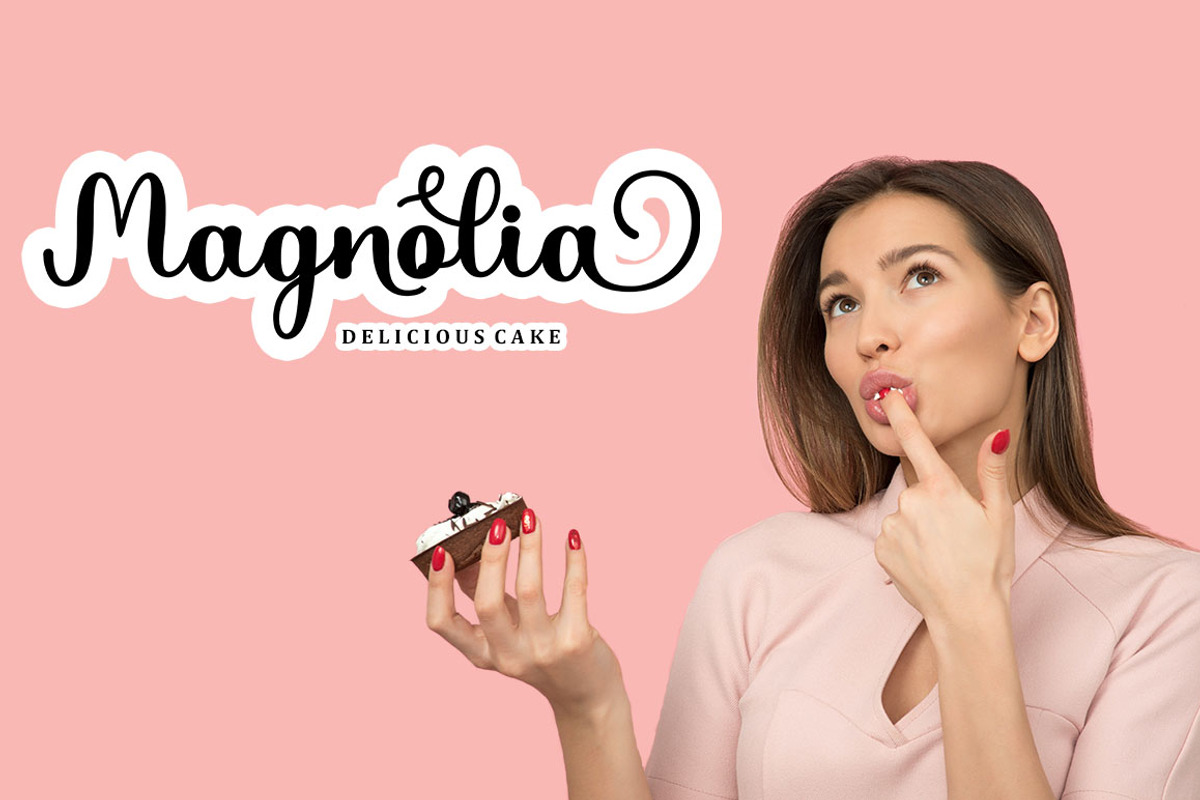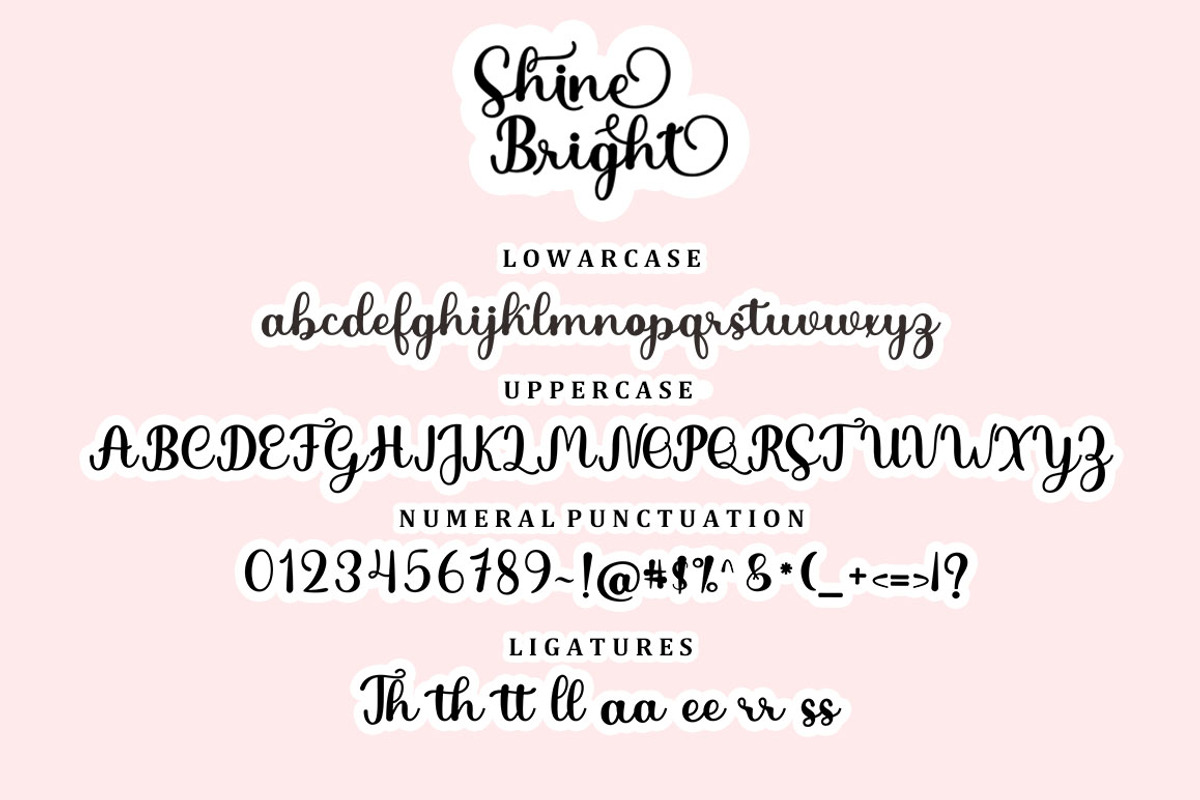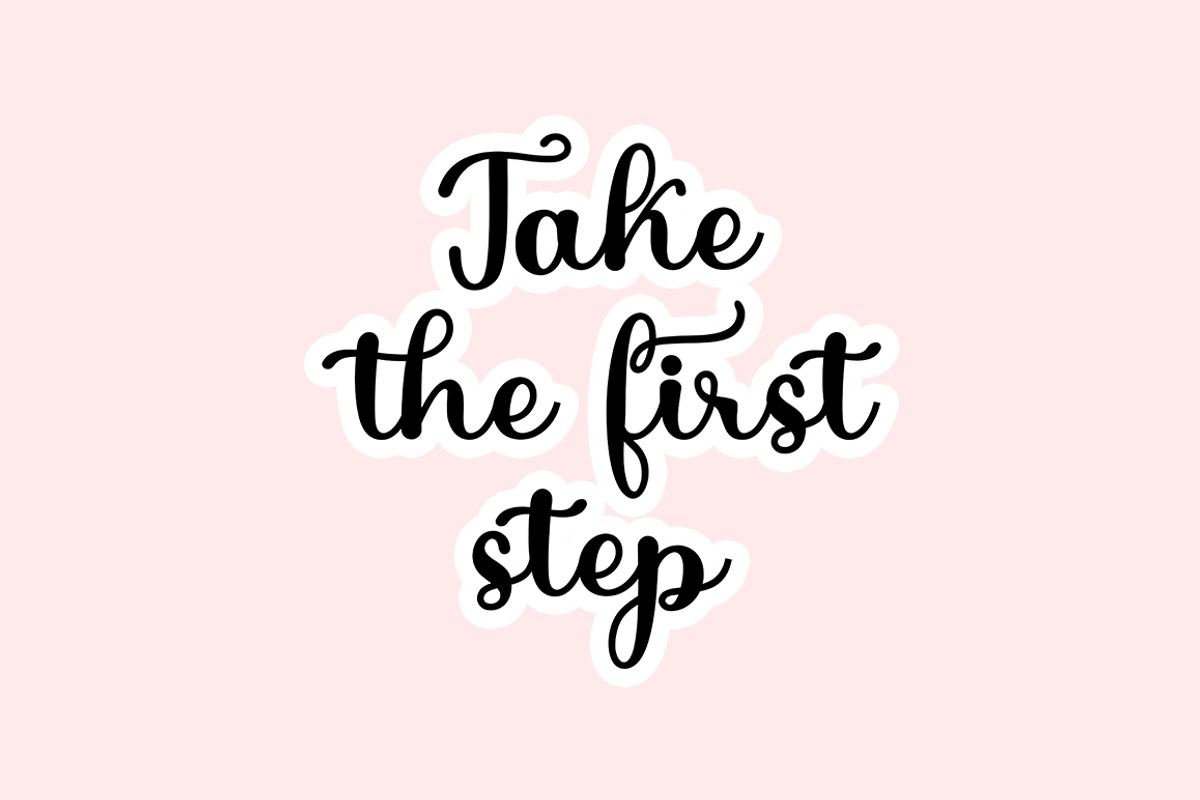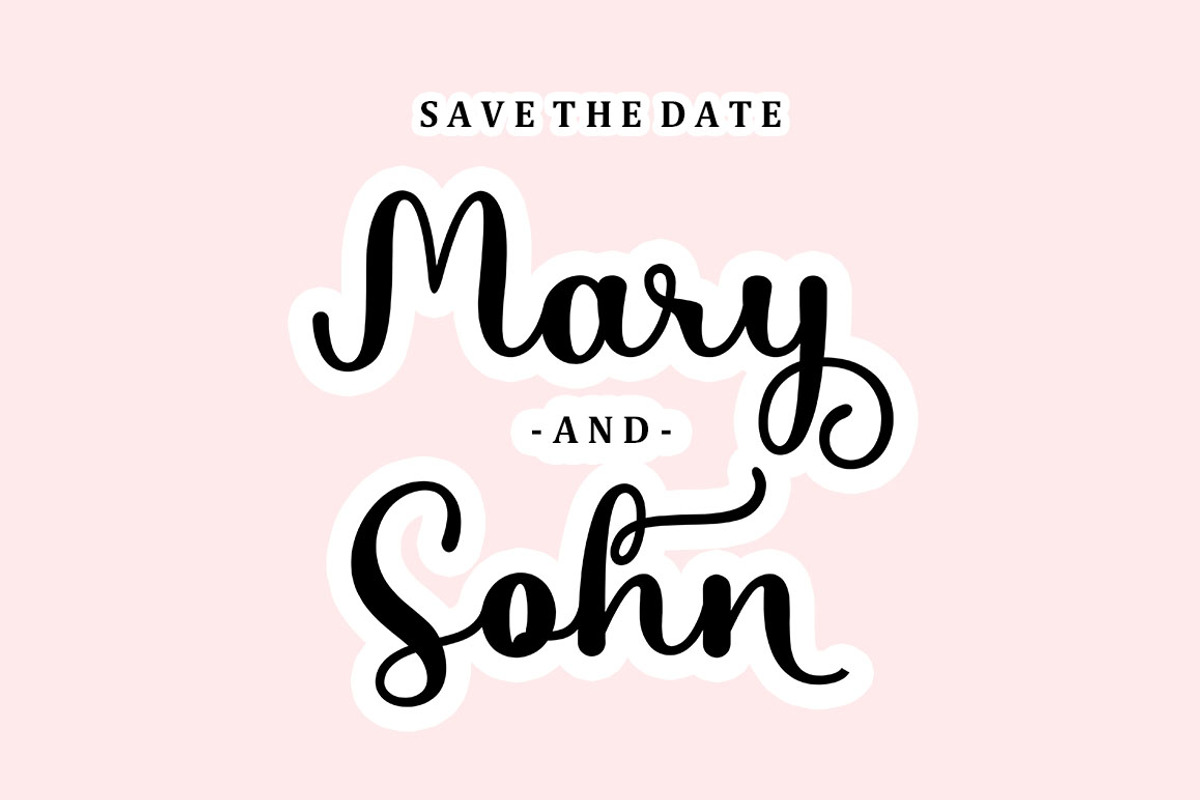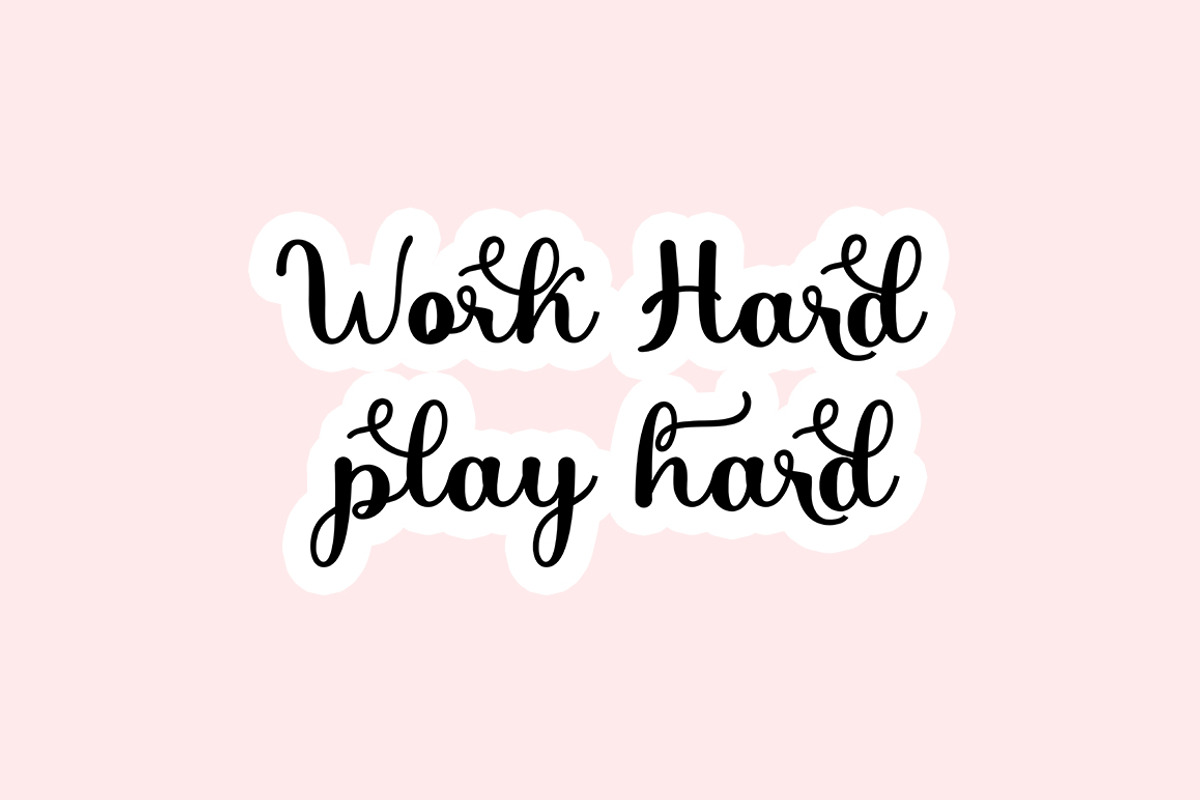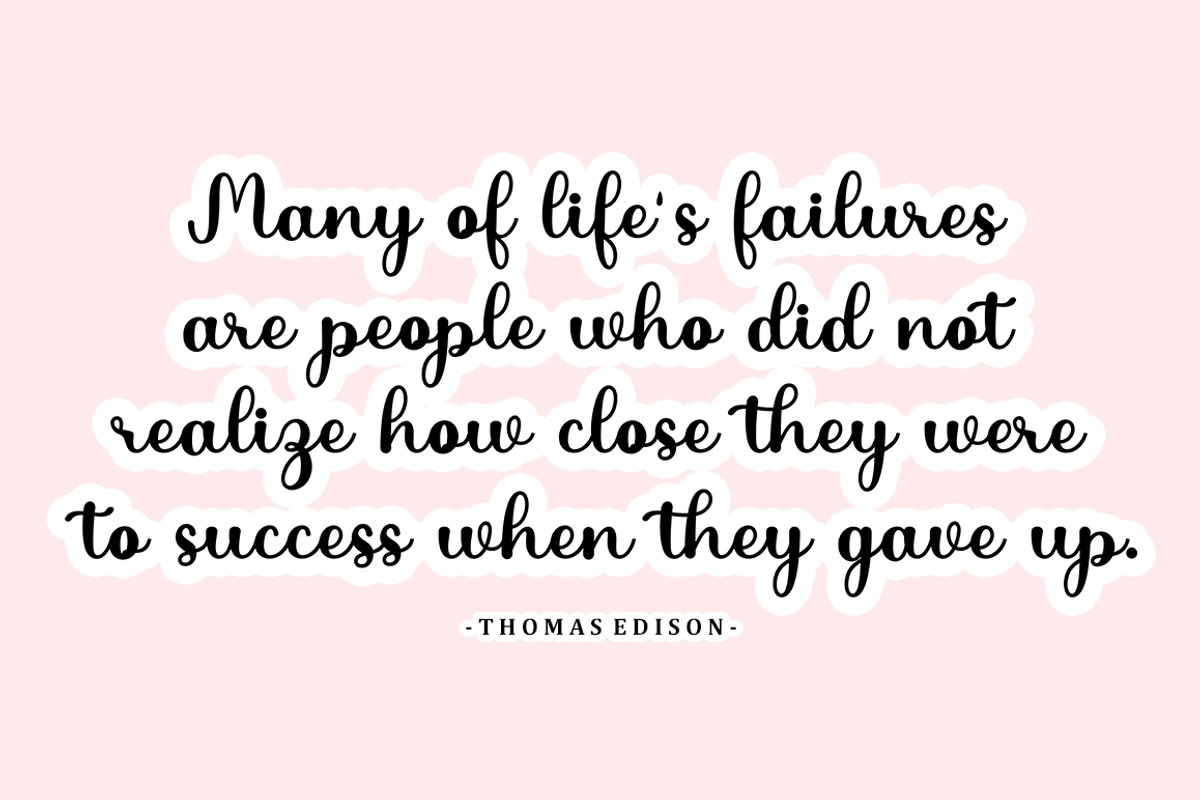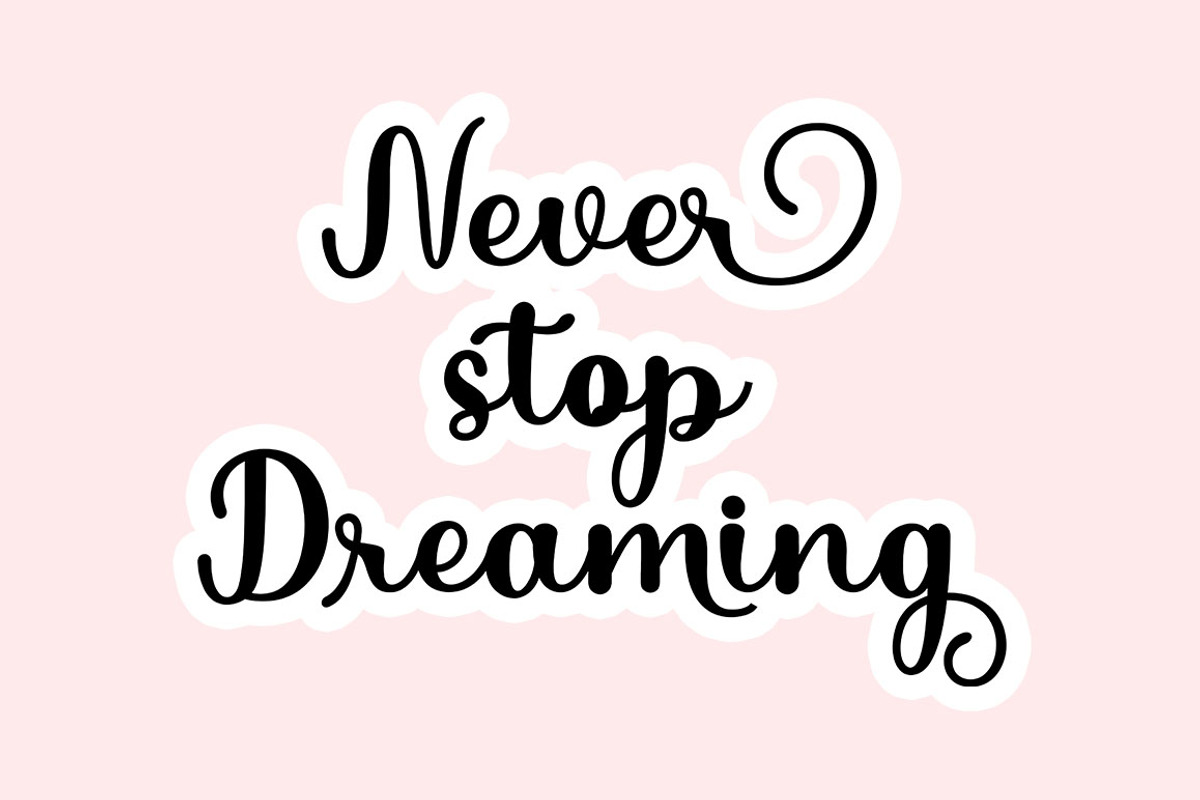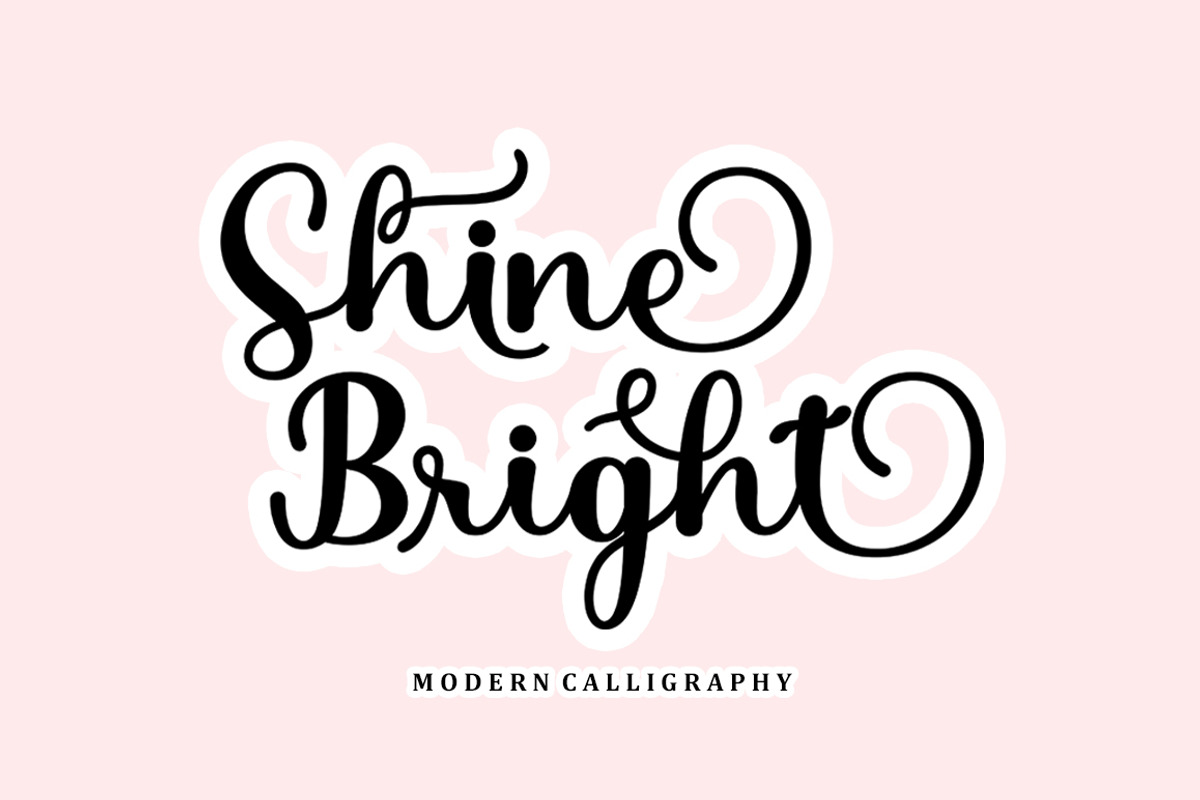
Shine Bright | Family Font
Shine Bright is a script type family of four fonts. It is inspired by Elegant Fonts and has a soft and friendly look Shine Bright can be used for branding, packaging and anywhere else you need a script font that is readable and smooth. Shine Bright has many ties, strokes and alternate characters that will make your designs unique and beautiful.